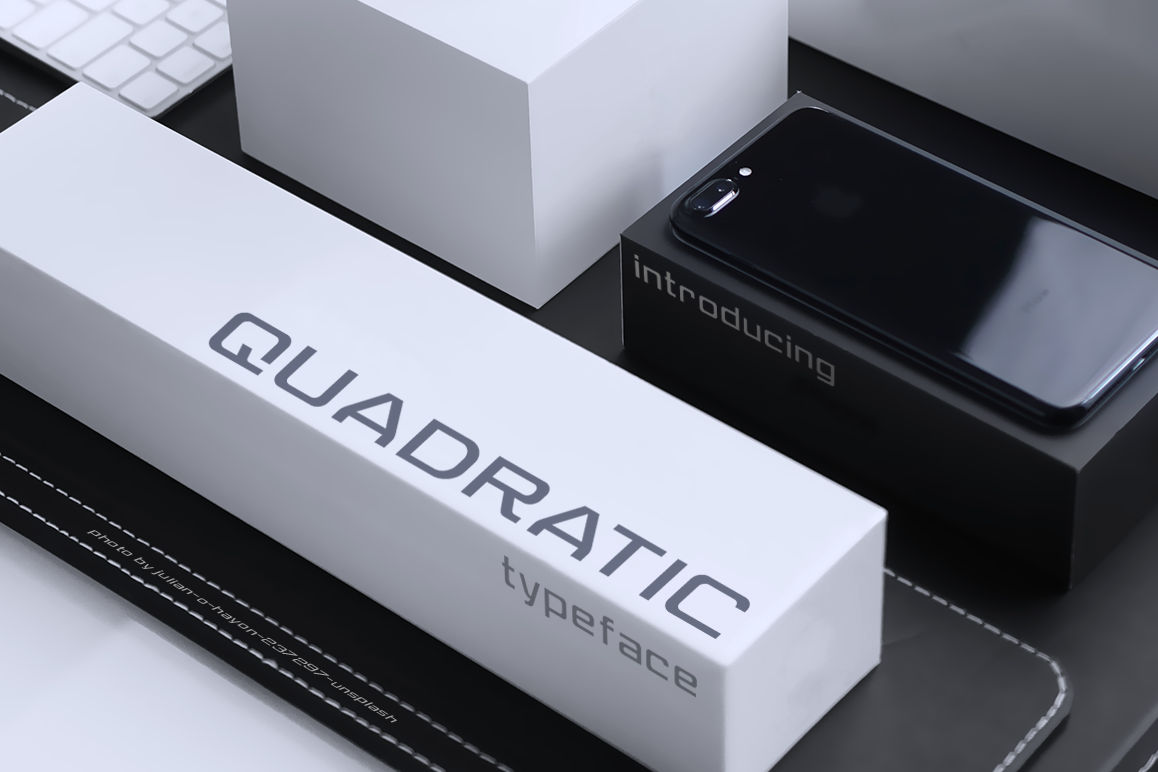
Quadratic
Quadratic is a modern & minimalist font. It's perfect for
branding, Logo, quotes, posters, branding, name card, stationary, design
title, blog header, art quote, typography art, modern envelope
lettering, book design and any other.
1. Upper Case & Lowercase
2. Standard Ligatures
3. Numerals & Punctuations (OpenType Standard)
4. Multilingual characters